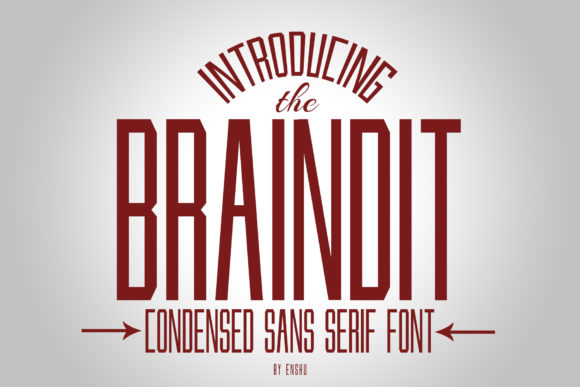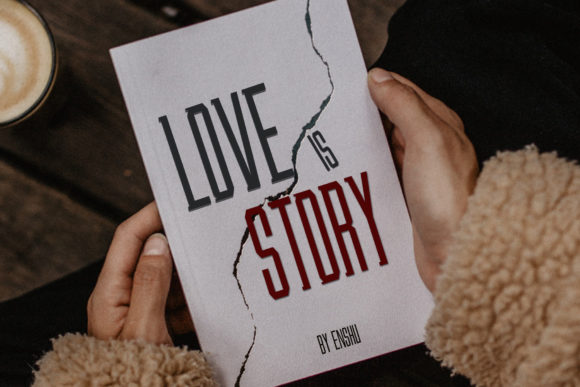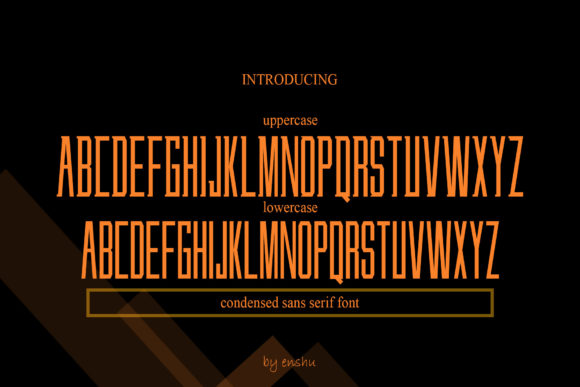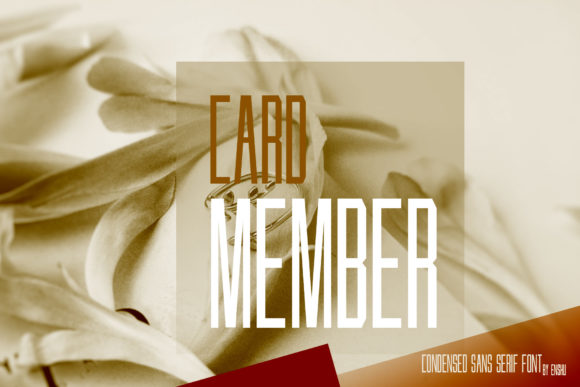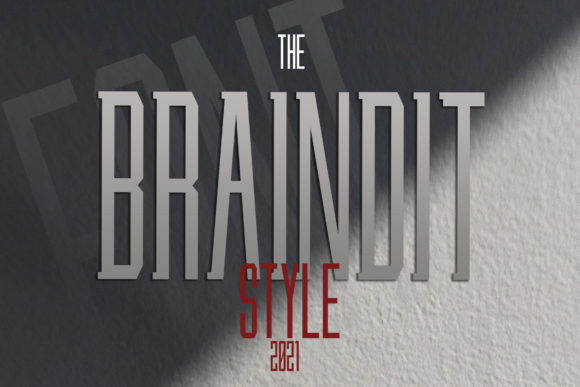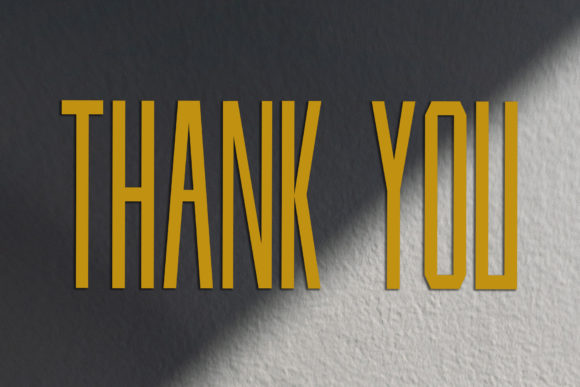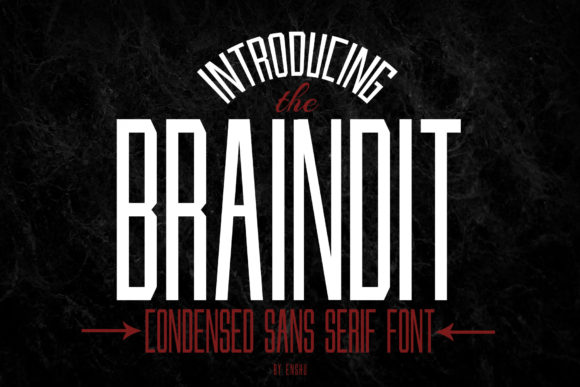
The Ultimate Display Font: Unleashing the Power of Braindit
Have you ever been in the middle of a design project, and suddenly, you’re stuck on finding the perfect font? I recall a particularly frustrating moment when I was working on a branding project for a client, and I just couldn’t find a font that screamed confidence and creativity. That’s when I stumbled upon Braindit, a tall and bold display font that instantly elevated my design game.
An Honest Review of Braindit
What I Love About Braindit ✨
- ✅ Versatility: Braindit is perfect for a wide range of crafting ideas, from cards and branding to labels and more.
- ✅ Bold and Tall: This font makes a statement, adding a touch of confidence to any design.
- ✅ Ease of Use: Braindit is incredibly easy to work with, even for those who are new to design.
- ⚠️ Limited Use Cases: While Braindit is amazing for display purposes, it might not be the best choice for body text or smaller font sizes.
- ⚠️ Glyph Limitations: Some users might find the glyph options a bit limited, but this is a minor quirk.
A Practical Guide to Using Braindit
Braindit’s OpenType features and glyphs can add an extra layer of creativity to your designs. Experiment with:
- Stylistic Alternates: Swap out letters for alternate versions.
- Ligatures: Combine letters for a more artistic look.
- Swashes: Add flourishes to your text.
The Backstory Behind Braindit
Braindit was designed with the intention of creating a bold and eye-catching font that could be used across various design projects. Its creator aimed to craft a font that was both versatile and attention-grabbing, making it perfect for designers, crafters, and creative hobbyists.
| What is Braindit best used for? | Braindit is best used for display purposes, such as headings, titles, and branding. |
| Can I use Braindit for body text? | While Braindit can be used for body text, it’s recommended to use it for larger font sizes to maximize its impact. |
| Is Braindit suitable for non-designers? | Absolutely! Braindit is easy to use and can be enjoyed by designers and non-designers alike. |